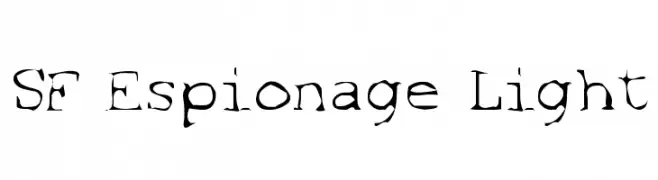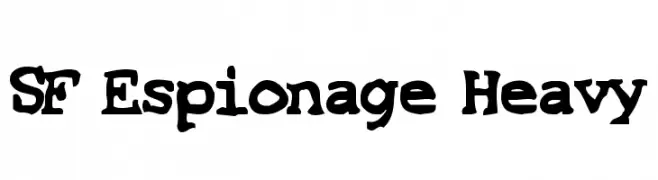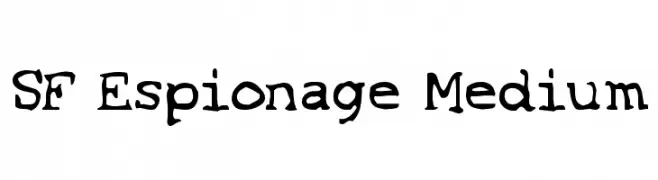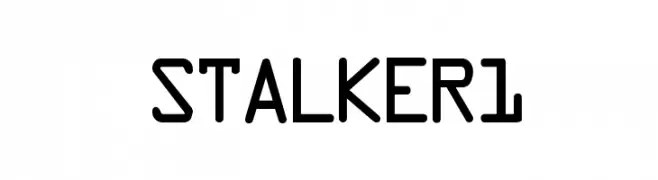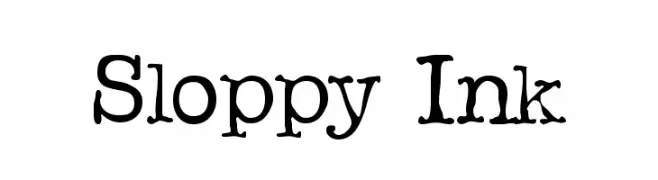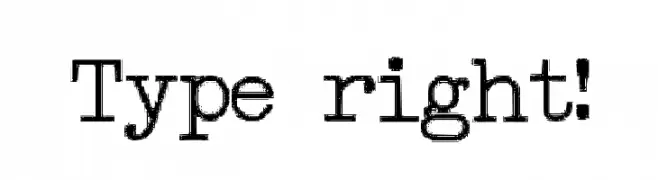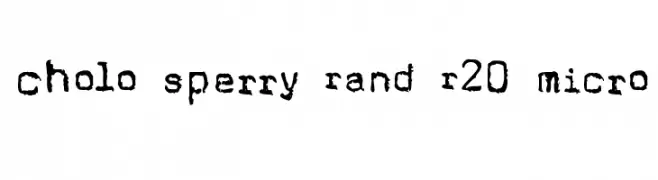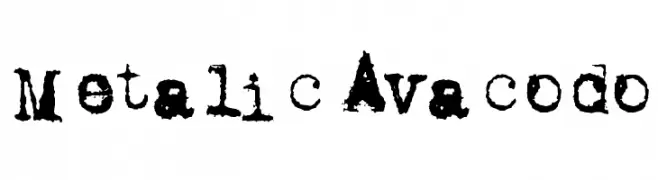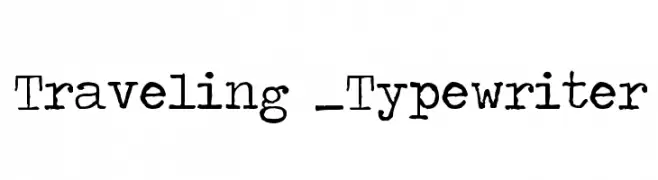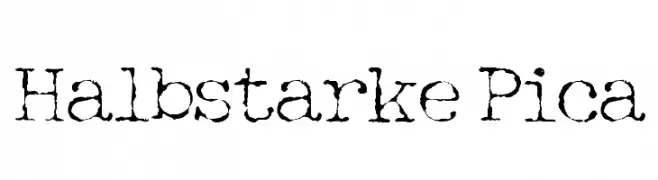
( Fonts by ShyFonts )
An artistic, hand-drawn font with irregular strokes and a dynamic appearance.
( Fonts by ShyFonts )
A bold, playful font with a hand-drawn, irregular style.
( Fonts by ShyFonts )
A playful, handwritten-style font with bold, irregular strokes.
( Fonts by Johan Holmdahl - www.free-typewriter-fonts.com )
A classic serif font with elegant strokes and refined serifs.
( Fonts by Johan Holmdahl - www.free-typewriter-fonts.com )
A vintage typewriter-style font with a textured, monospaced design.
( Fonts by www.junkohanhero.com )
A bold, distressed typewriter-style font with a vintage, grunge aesthetic.
( Font by Inaki Marquinez )
A distressed, grungy font with a vintage, textured appearance.
( Fonts by David Rakowski )
A distressed, vintage serif font with a textured, weathered look.
( Fonts by Manfred Klein - manfred-klein.ina-mar.com )
A vintage, bold serif font with a distressed, newspaper-like appearance.
( Fonts by Charly Masci - www.mvdgdesign.com )
A vintage, textured serif font with a distressed, typewriter-like appearance.
( Fonts by James Cianciaruso - Ablaze )
A distressed, vintage typewriter-style font with bold, textured characters.
( Fonts by James Cianciaruso - Ablaze )
A bold, distressed font with a vintage, typewriter-inspired style.
( Fonts by James Cianciaruso - Ablaze )
A vintage typewriter-style font with a distressed, textured appearance.
( Fonts by www.vicfieger.com )
A vintage, typewriter-inspired font with a distressed, organic look.
( Fonts by Bartek Nowak - www.nowak.tv/fontoholic/ )
A distressed, vintage typewriter-style font with a rough, textured appearance.
( Fonts by Bartek Nowak - www.nowak.tv/fontoholic/ )
A vintage, typewriter-style font with a distressed, textured appearance.
( Fonts by Bartek Nowak - www.nowak.tv/fontoholic/ )
A bold, distressed typewriter-style font with a vintage, grunge aesthetic.
( Fonts by Bartek Nowak - www.nowak.tv/fontoholic/ )
A distressed, vintage typewriter-style font with a textured, aged appearance.
( Fonts by Koczman Balint - magiquefonts.gportal.hu )
A distressed, vintage typewriter-style font with a rugged and nostalgic appearance.